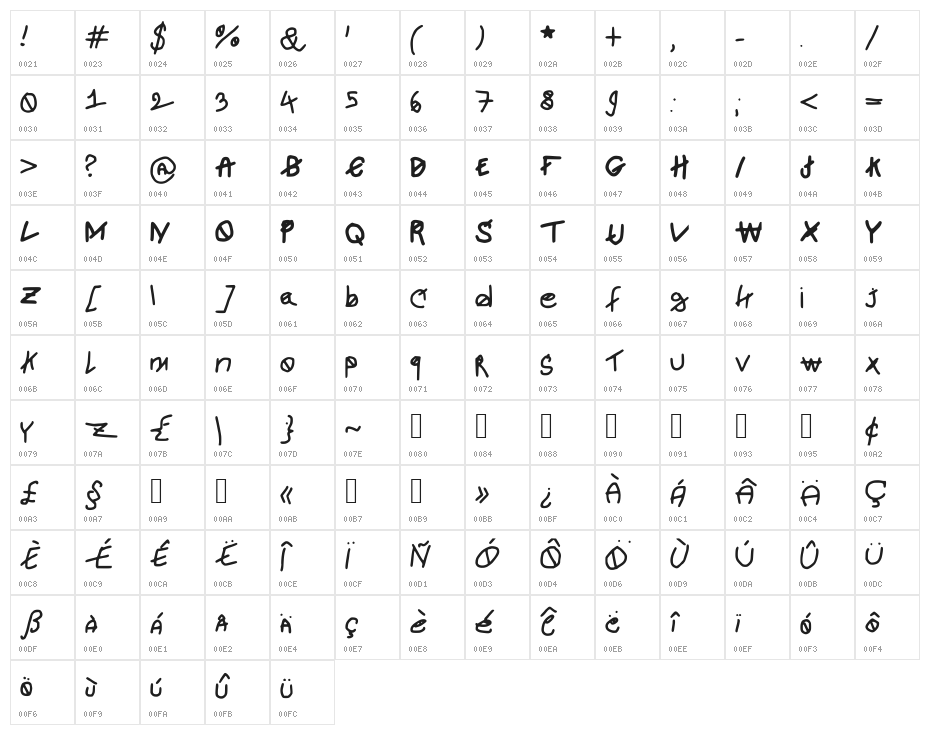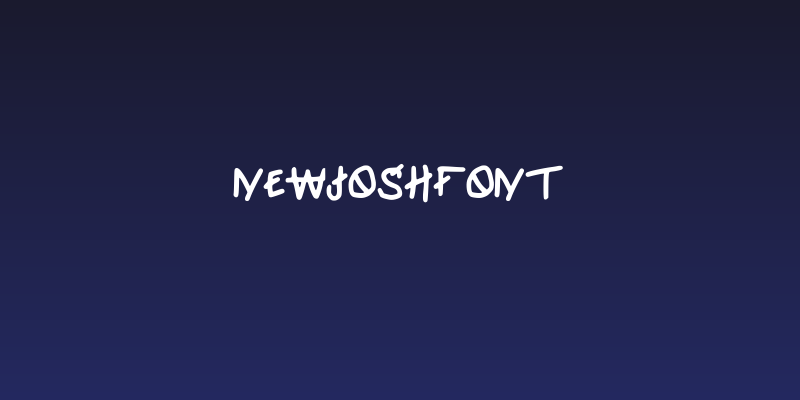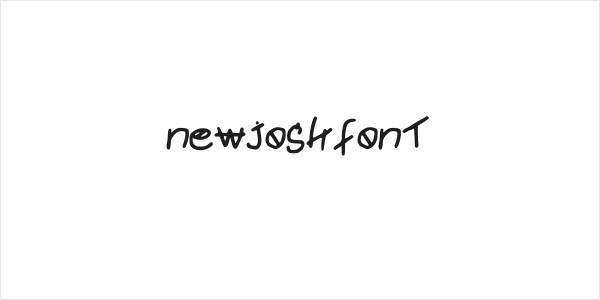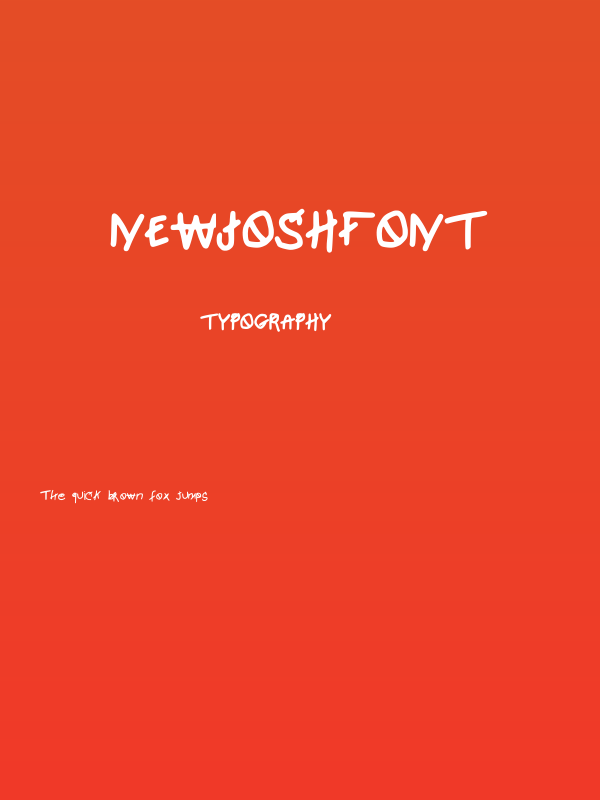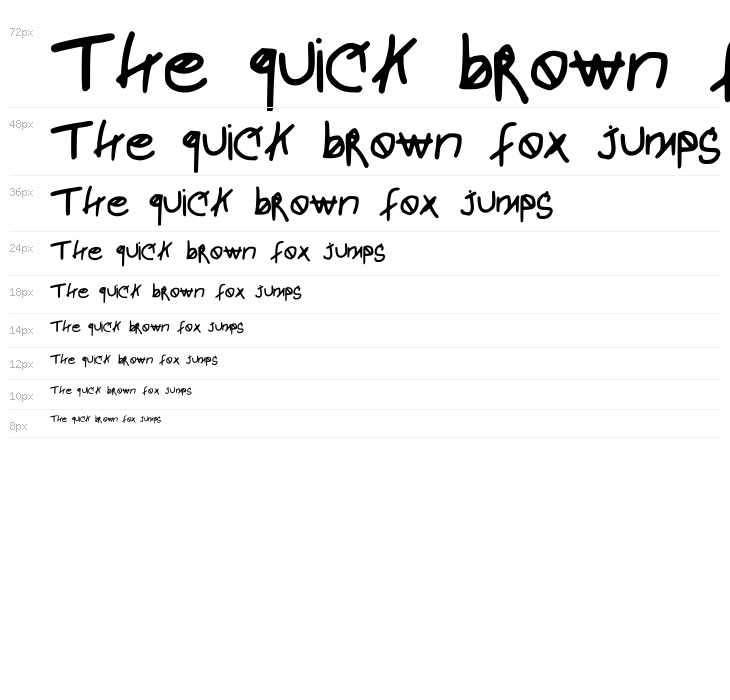
newjoshfont Font
newjoshfont Description
This font features a playful and energetic handwritten style, characterized by its bold and slightly irregular strokes. The letters have a casual, informal appearance, with a dynamic flow that suggests movement and spontaneity. The uppercase and lowercase letters maintain a consistent style, with rounded edges and a slight slant that adds to the font's lively personality. The numerals and special characters are equally expressive, matching the overall aesthetic. This font's unique charm makes it suitable for projects that require a personal touch or a sense of fun.
| Proposed Projects | Ideal for greeting cards, children's books, playful branding, and social media graphics. |